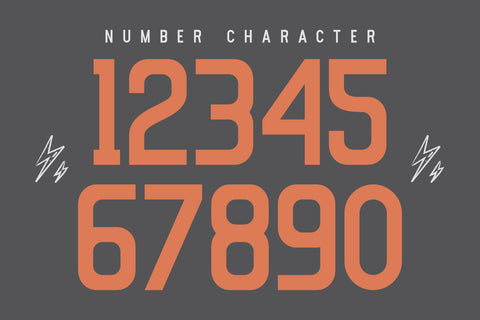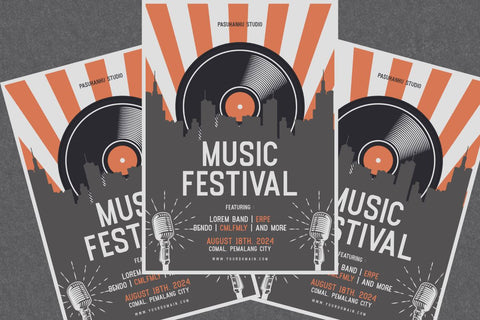
Capsport - Vintage Sans Serif Font
Capsport is a charming bold sans serif font. font with vintage and retro style. fonts that are suitable for various needs such as branding, posters, web, album cover, magazines, flyers, events, logos, and many other ideas.